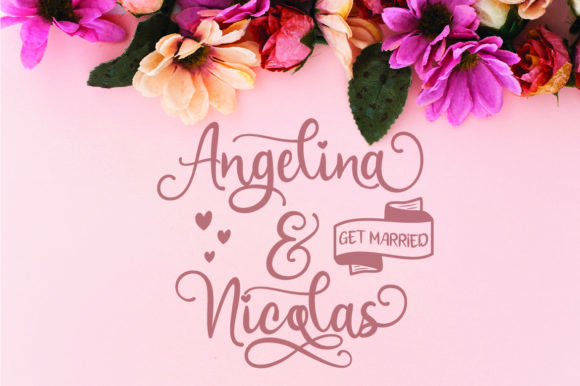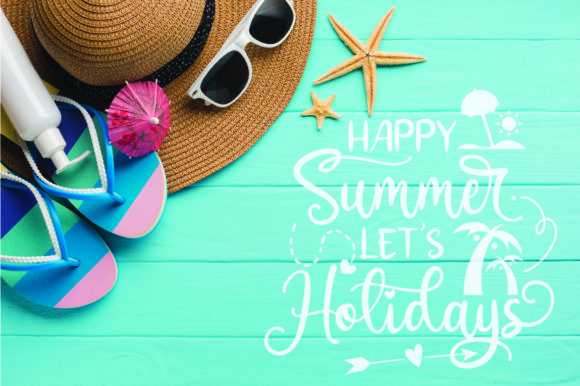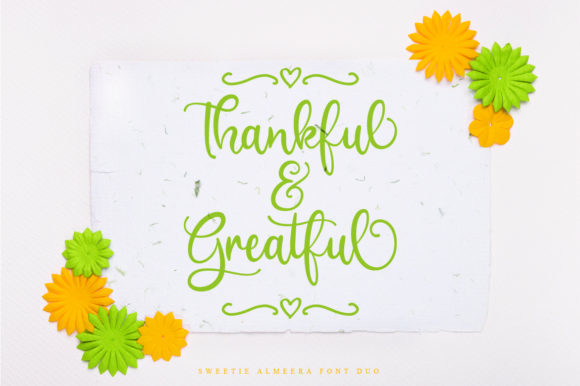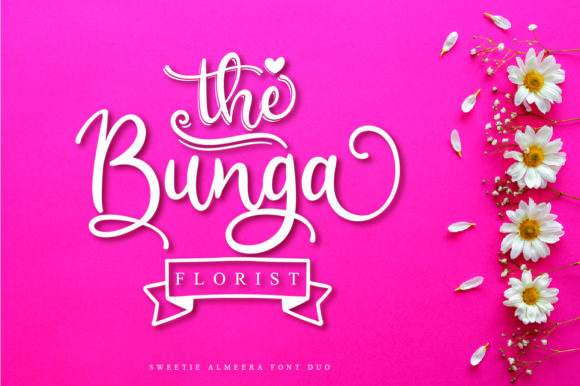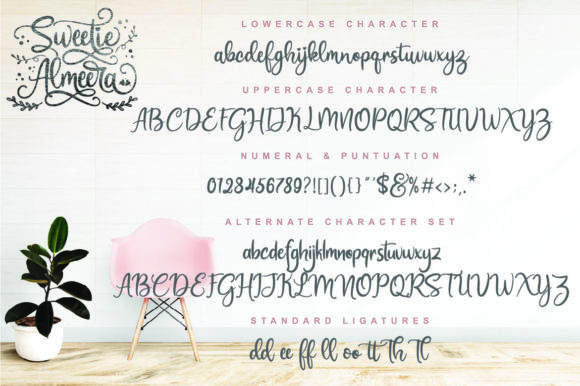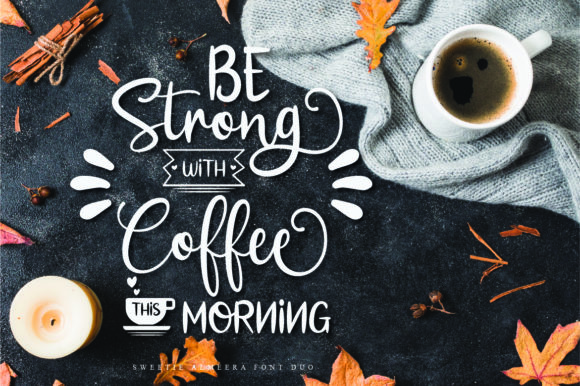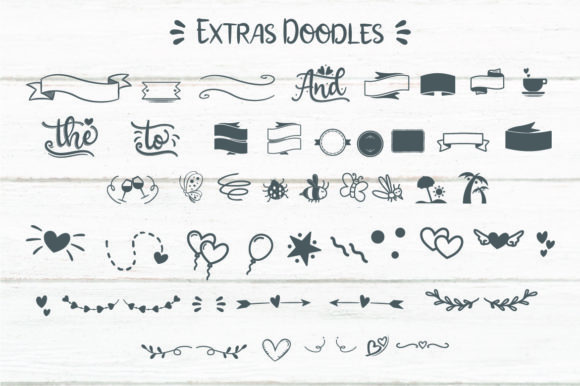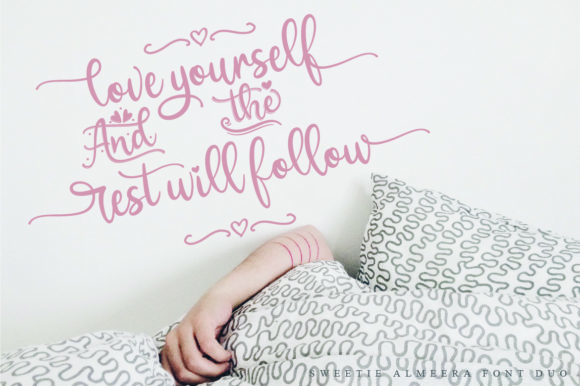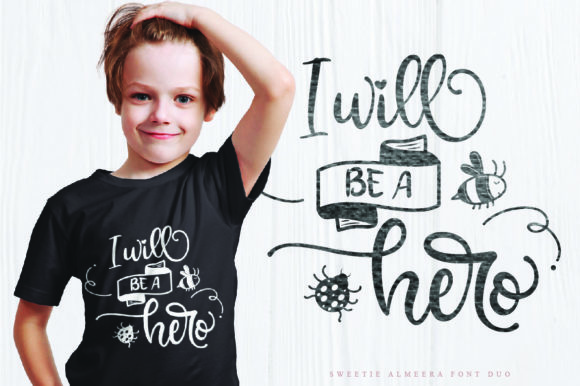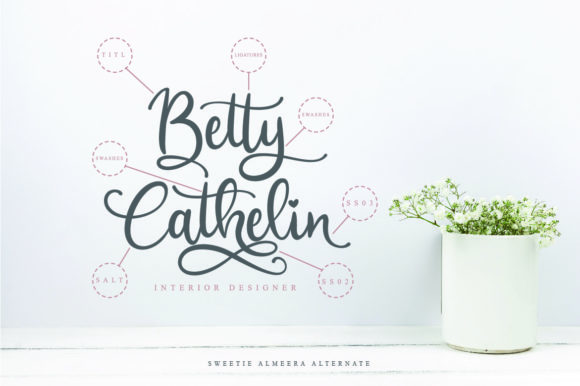
HomeScript FontsSweetie Almeera Font Script Fonts Sweetie Almeera Font FacebookXPinterestWhatsApp Sweetie Almeera Font Poster 2 Sweetie Almeera Font Poster 3 Sweetie Almeera Font Poster 4 Sweetie Almeera Font Poster 5 Sweetie Almeera Font Poster 6 Sweetie Almeera Font Poster 7 Sweetie Almeera Font Poster 8 Sweetie Almeera Font Poster 9 Sweetie Almeera Font Poster 10 Sweetie Almeera Font Poster 11 Sweetie Almeera Font Poster 12 About Sweetie Almeera Font Sweetie Almeera is a cute and fun feel, perfect for any design that requires a cool and authentic feel. DOWNLOAD NOW People also explored The Wildeast Font Garaetteok Font Getterlin Font Stomped County Font Aleena Groovy Font Piano Teacher Font Lamoncia Font Simple Party Font Carolina Font 286 0 TagsSweetie Almeera Font Previous articleNightfall FontNext articleMasticusy Font LEAVE A REPLY Cancel reply Comment: Please enter your comment! Name:* Please enter your name here Email:* You have entered an incorrect email address! Please enter your email address here Website: Save my name, email, and website in this browser for the next time I comment. Personal Use Free Bruttney Personal Use Free Read more about this font BD Geminis Personal Use Free Read more about this font Eva Personal Use Free Read more about this font Anggiana Personal Use Free Read more about this font BLOG How to Cut Any Font on Cricut: Convert a Font to SVG (Free) Turn any font into a clean SVG so it cuts crisp on Cricut - a quick 3-step workflow using a free font-to-SVG tool. To increase your work productivity, choose the most readable fonts. Top 7 Google Fonts Alternatives for Faster and Privacy-Friendly Web Design (2025) Transform Your Website: Elevate Your Typography with 7 Best Web Font Generators